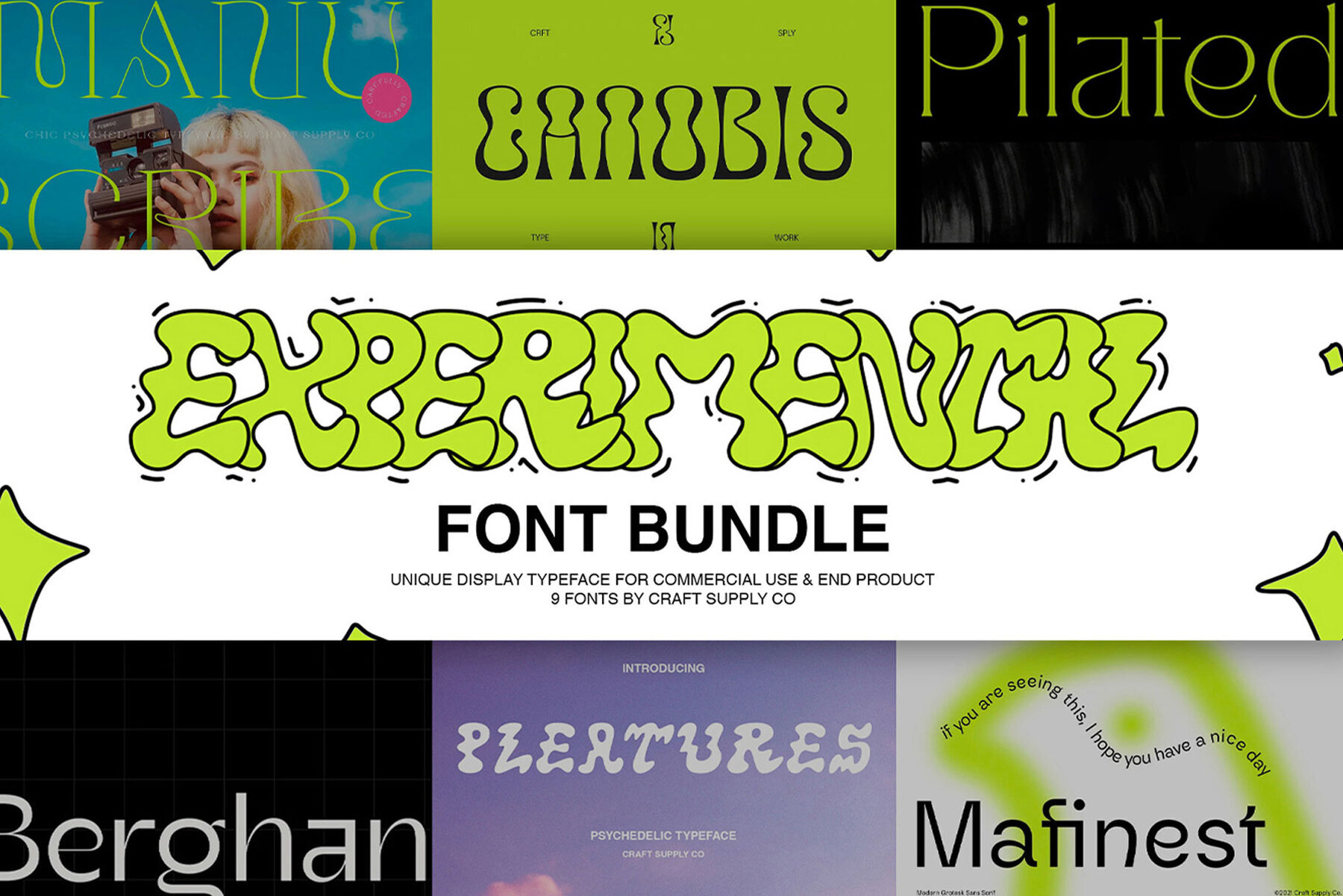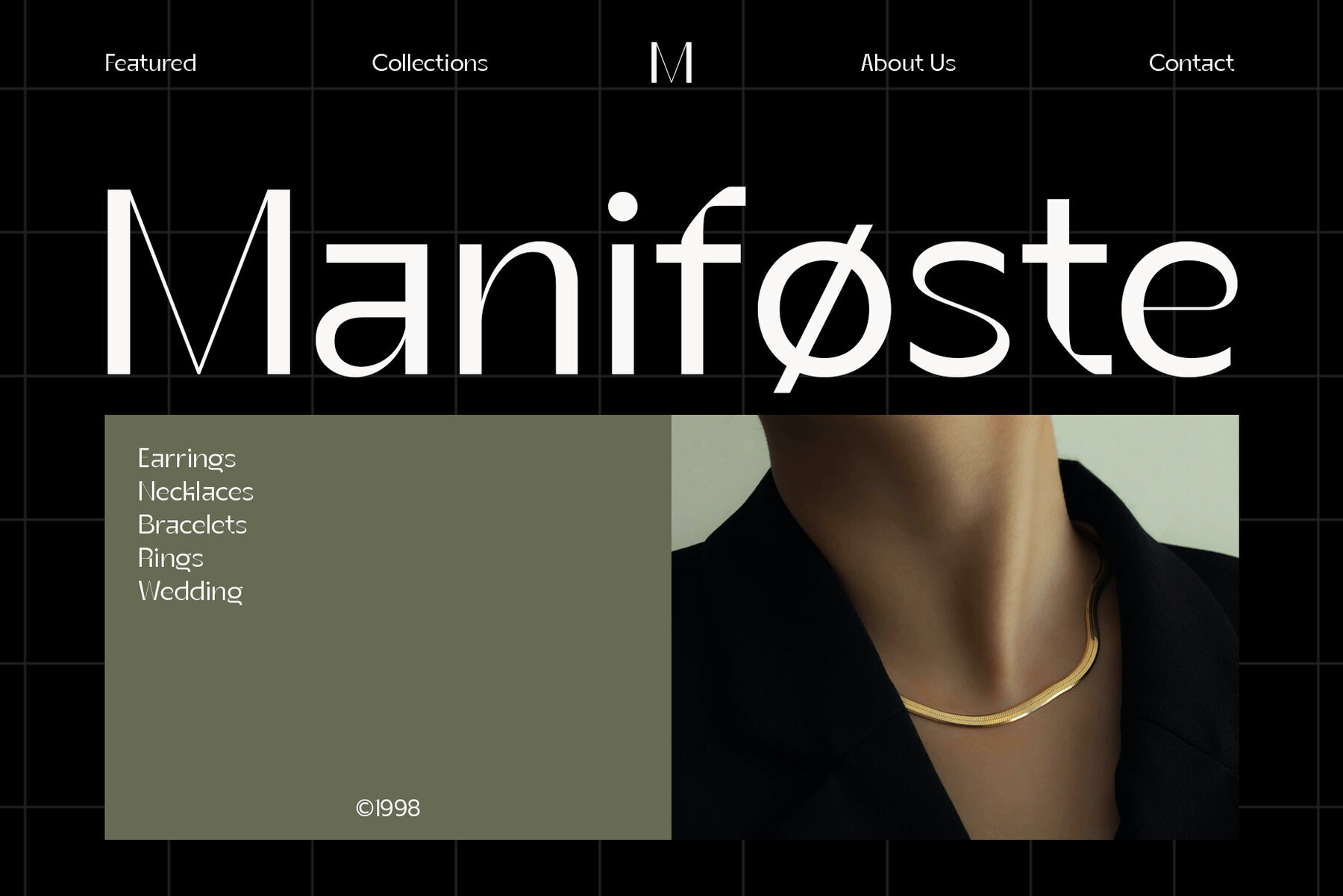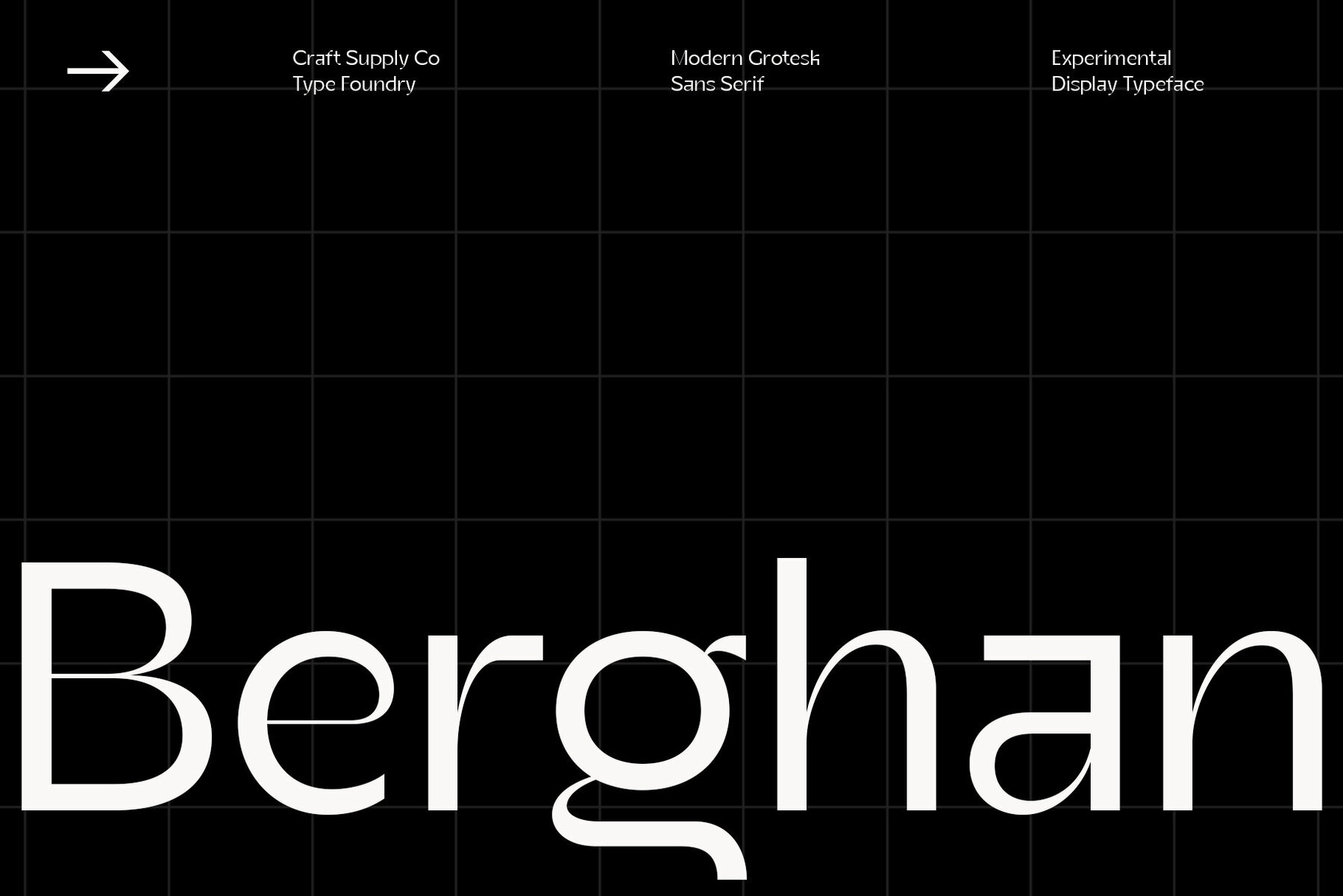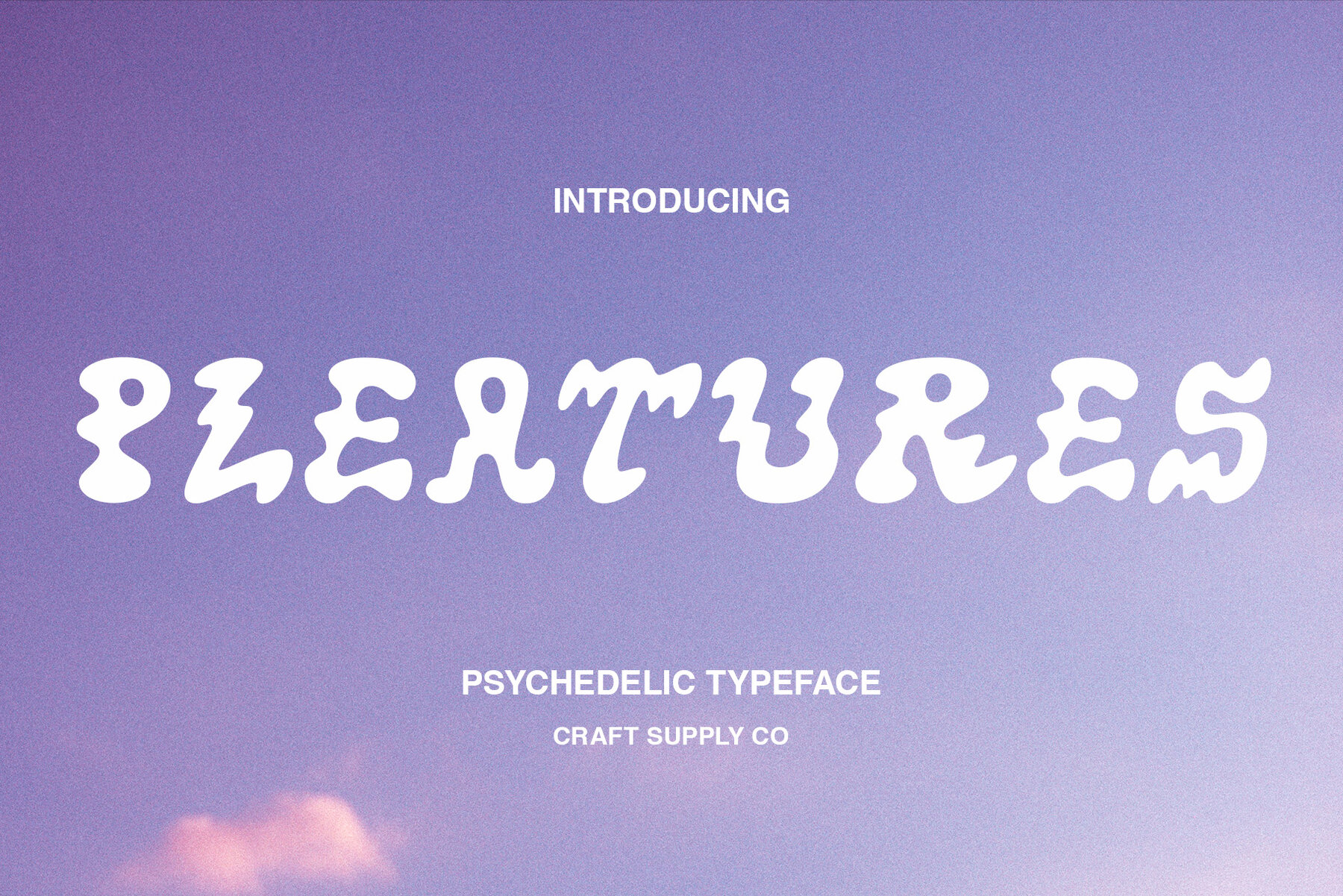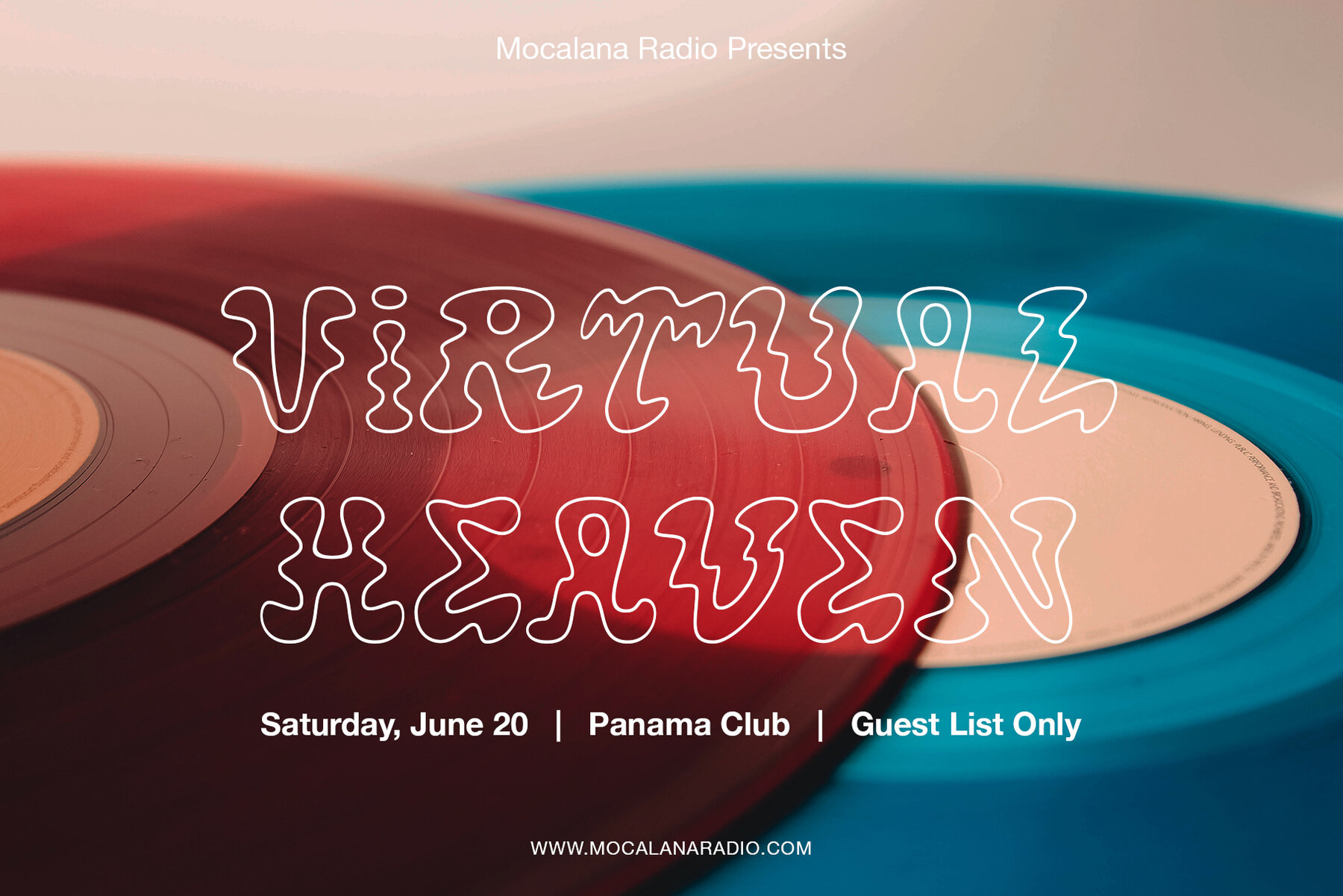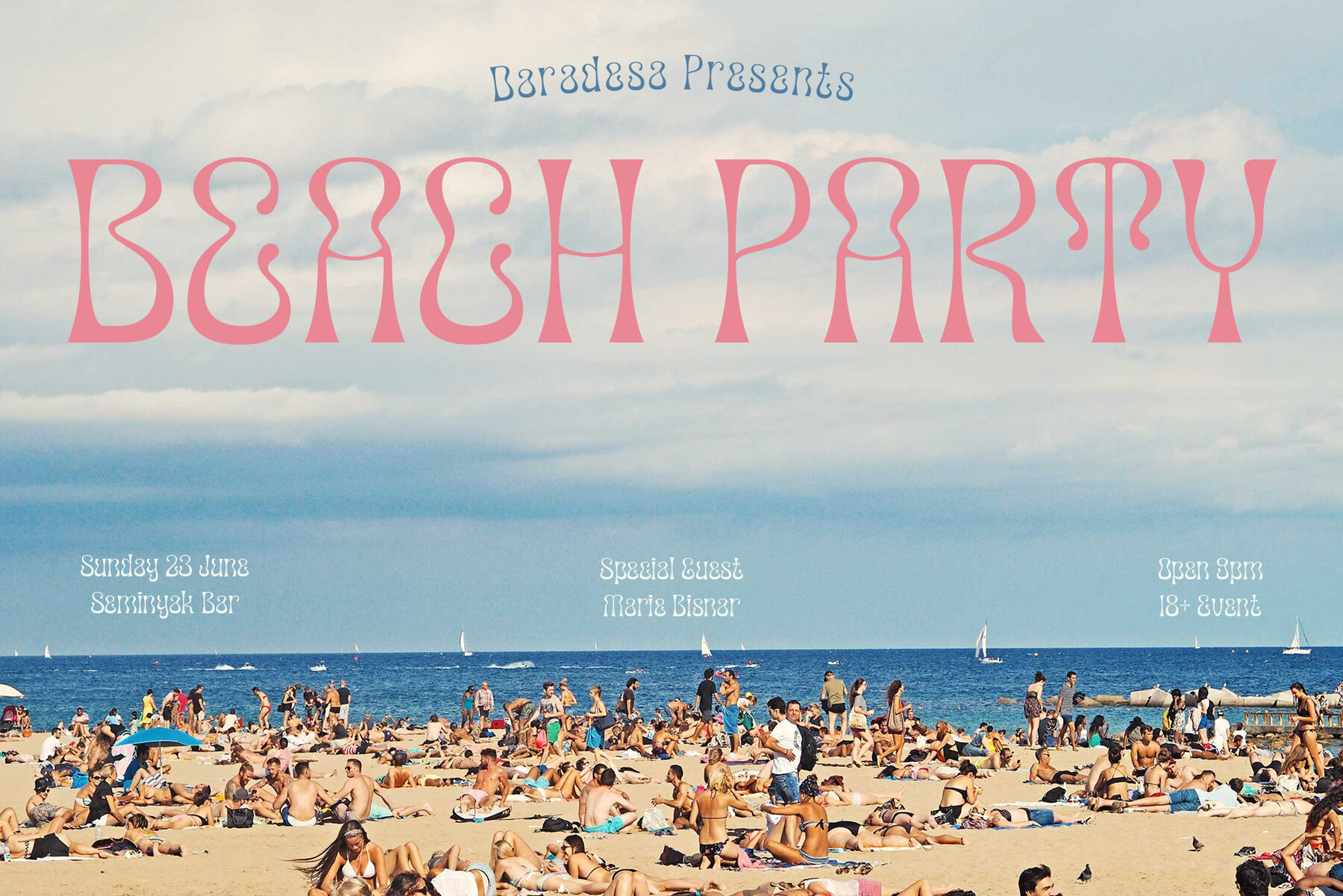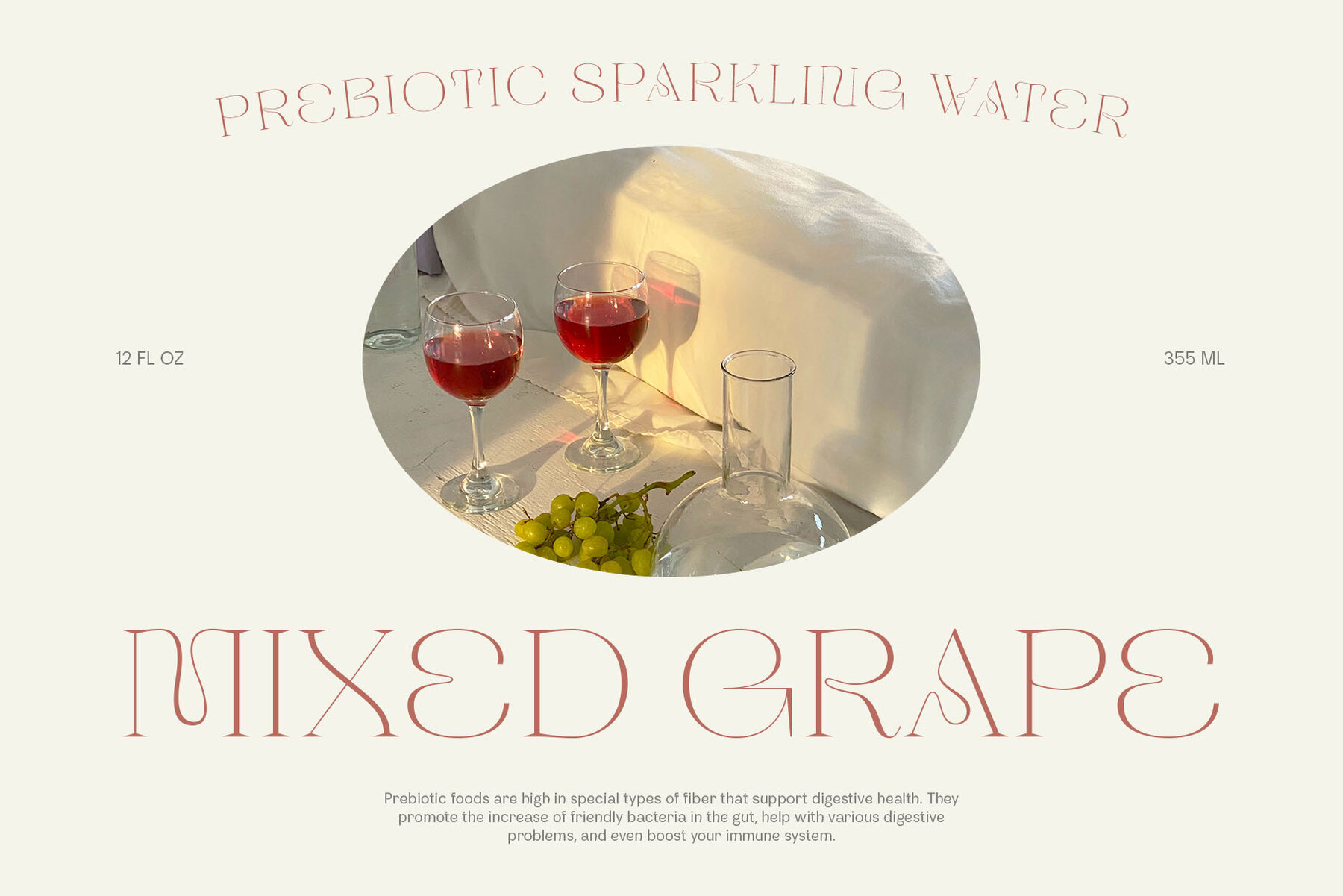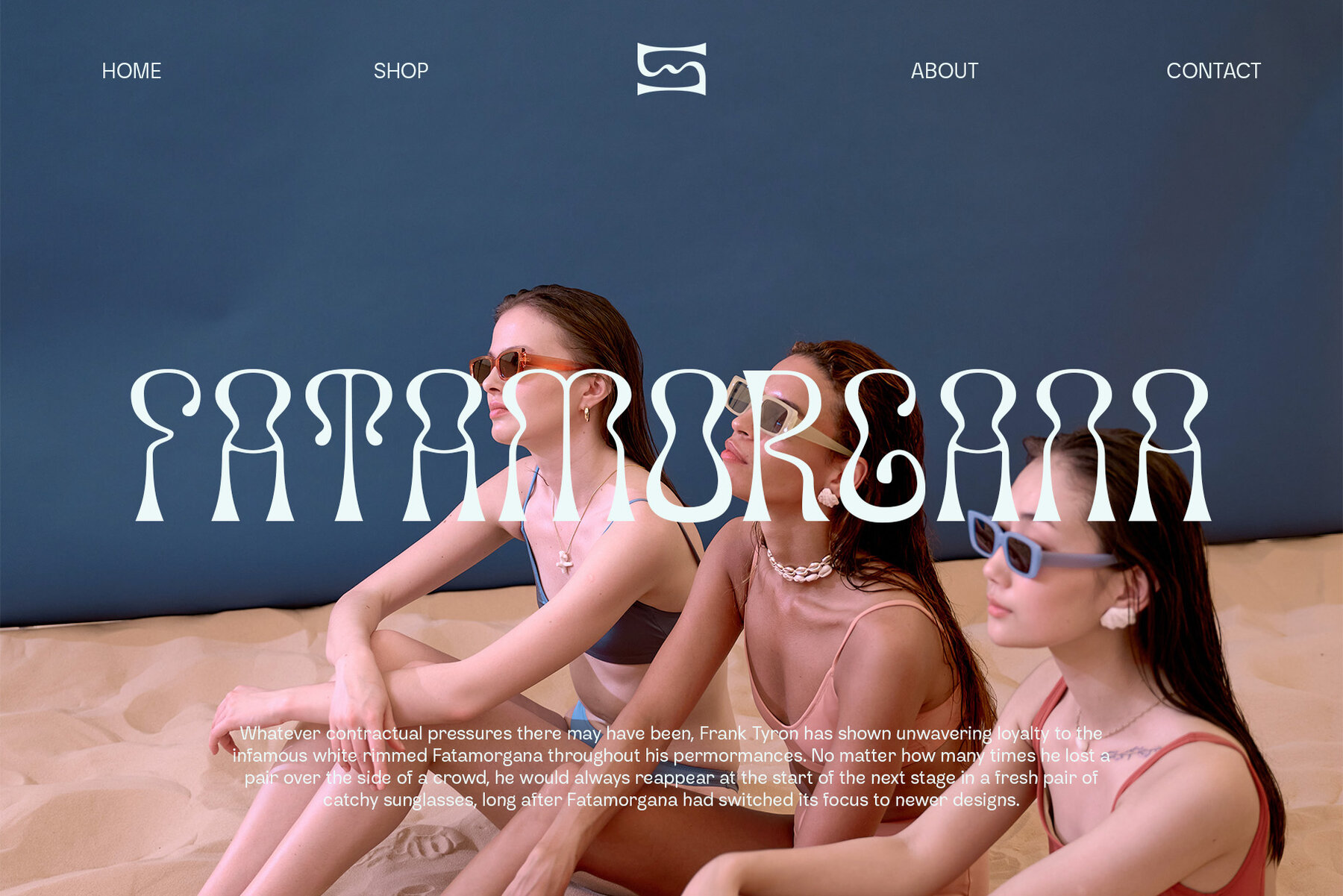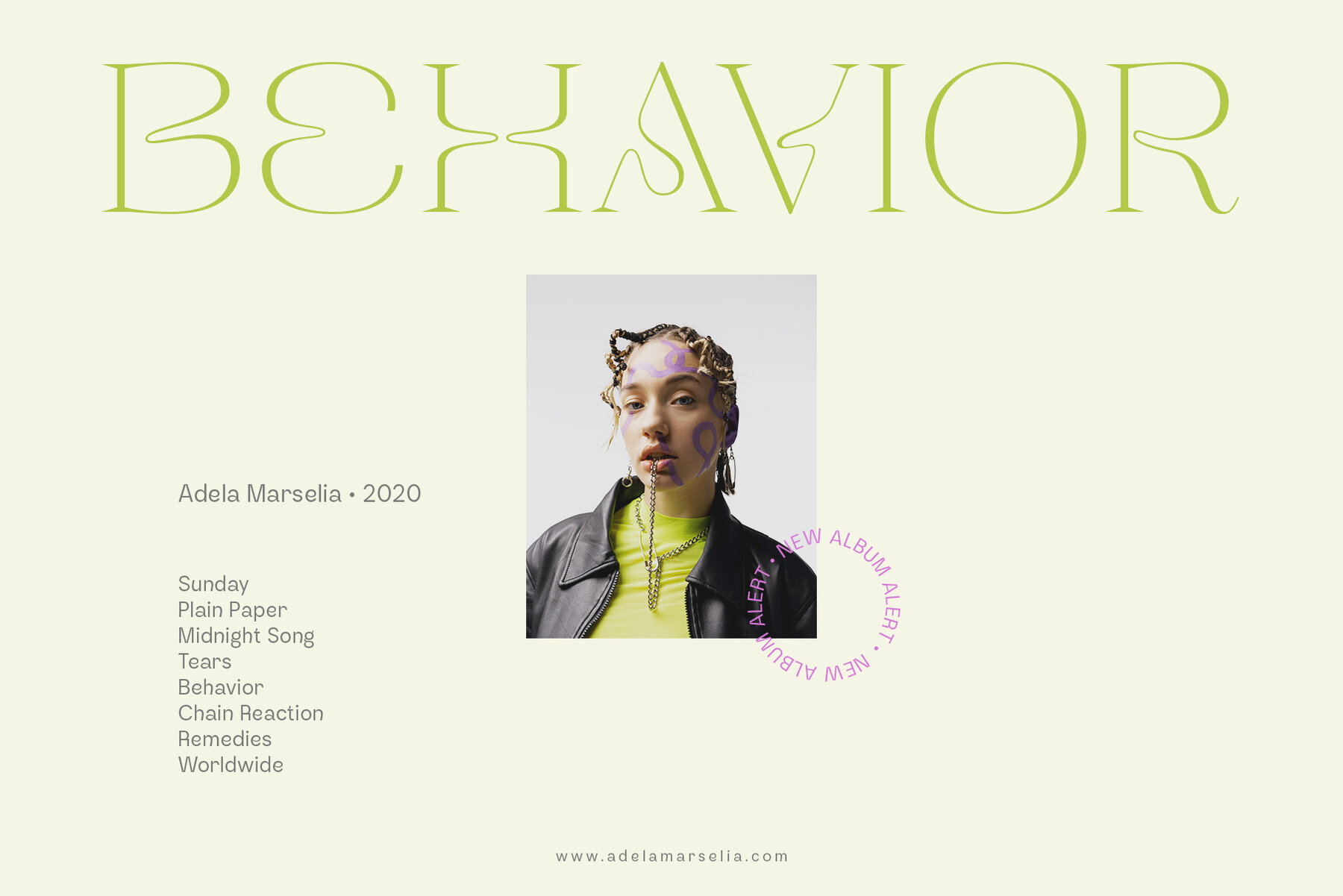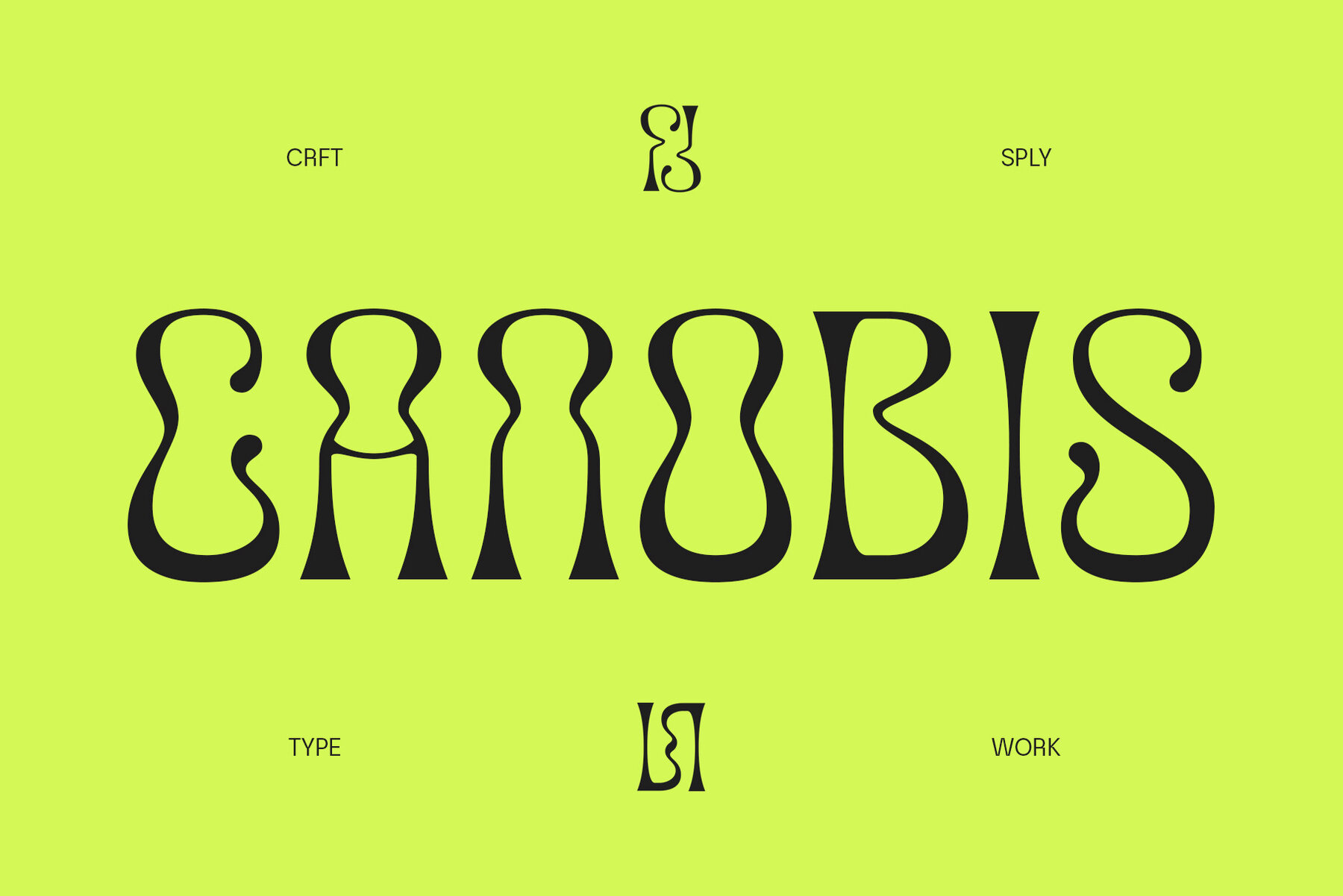
Experimental Font Bundle
This Bundle includes 9 fonts. This bundle is a terrific toolbox for display purposes. It would be a perfect choice to design posters, headings, letterhead, merchandise, logos, t-shirts, magazine, banner, and many more.
The Fonts :
Pilated
Mafinest
Pleatures
Berghan
Canobis
Manuscribe
- Upper Case & Lowercase
- Stylistic Alternates
- Standard Ligatures
- Numerals & Punctuations (OpenType Standard)